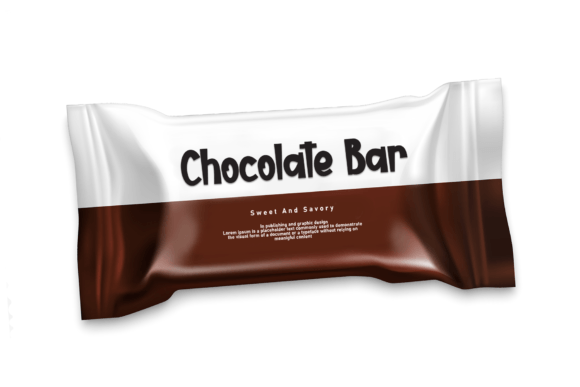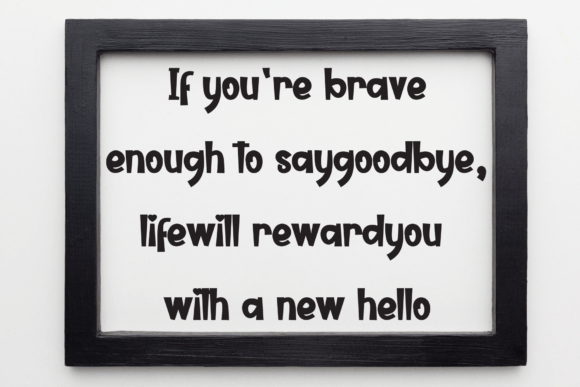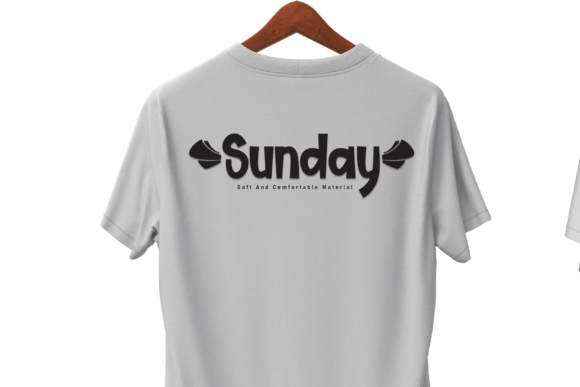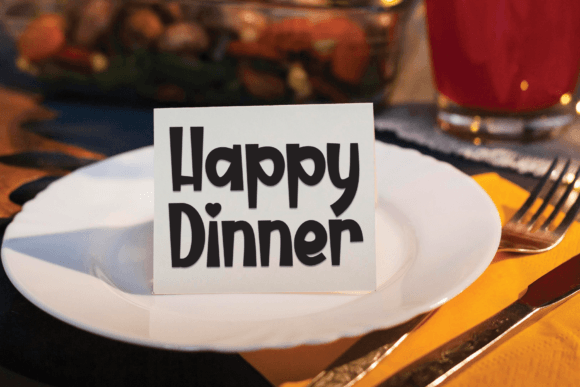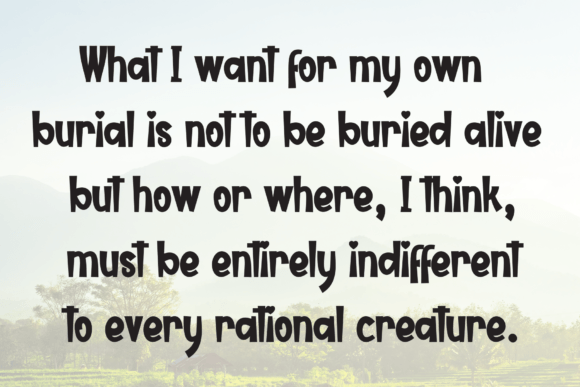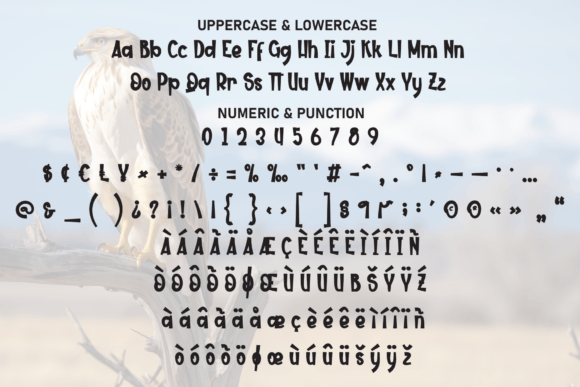
Eagle Highland Font: A Handwritten Style for Personal and Artistic Touch
Eagle Highland is a font that looks like it was written by hand. Its letters have a natural and flowing style, as if someone used a pen or brush to create them. This font gives a personal and artistic touch to any text it’s used for, making it feel warm and unique. In this article, we’ll explore the features and benefits of Eagle Highland Font, and how it can be used to add a creative and handmade touch to various design projects.
What is Eagle Highland Font?
Eagle Highland Font is a typeface designed to mimic the look of handwritten text. Its letters are crafted to resemble the natural flow and imperfections of handwriting, giving it a personal and organic feel. The font is perfect for designers and crafters looking to add a touch of warmth and personality to their work.
Key Features of Eagle Highland Font
• Handwritten style: Eagle Highland Font has a distinctive handwritten style that sets it apart from other fonts. Its letters are designed to look like they were written by hand, with a natural flow and imperfections that give it a personal touch.
• Natural and flowing: The font’s letters have a natural and flowing style, making it perfect for use in designs where a personal and artistic touch is desired.
• Unique and creative: Eagle Highland Font is a unique and creative font that can add a touch of personality to any design project.
• Versatile: The font is versatile and can be used in a variety of design projects, from digital designs to print materials.
Benefits of Using Eagle Highland Font
Eagle Highland Font offers several benefits to designers and crafters. Some of the benefits include:
• Personal touch: The font adds a personal touch to any design project, making it feel warm and unique.
• Creative freedom: Eagle Highland Font gives designers and crafters the creative freedom to experiment with different design ideas and concepts.
How to Use Eagle Highland Font in Design Projects
Eagle Highland Font can be used in a variety of design projects, from digital designs to print materials. Here are some ideas on how to use the font:
• Digital designs: Use Eagle Highland Font in digital designs such as social media graphics, blog posts, and website headers.
• Print materials: Use the font in print materials such as brochures, flyers, and business cards.
• Crafting projects: Use Eagle Highland Font in crafting projects such as handmade cards, scrapbooking, and DIY signs.
• Branding and packaging: Use the font in branding and packaging designs to add a personal and artistic touch.
Tips and Tricks for Using Eagle Highland Font
Here are some tips and tricks for using Eagle Highland Font:
• Experiment with different sizes and colors: Experiment with different sizes and colors to find the perfect combination for your design project.
• Use it with other fonts: Use Eagle Highland Font with other fonts to create a unique and creative design.
• Pay attention to spacing and kerning: Pay attention to spacing and kerning to ensure that the text is easy to read and visually appealing.
Eagle Highland Font is a unique and creative font that can add a personal and artistic touch to any design project. Its handwritten style and natural flow make it perfect for designers and crafters looking to add a touch of warmth and personality to their work. With its versatility and cross-platform compatibility, Eagle Highland Font is a great addition to any design toolkit.